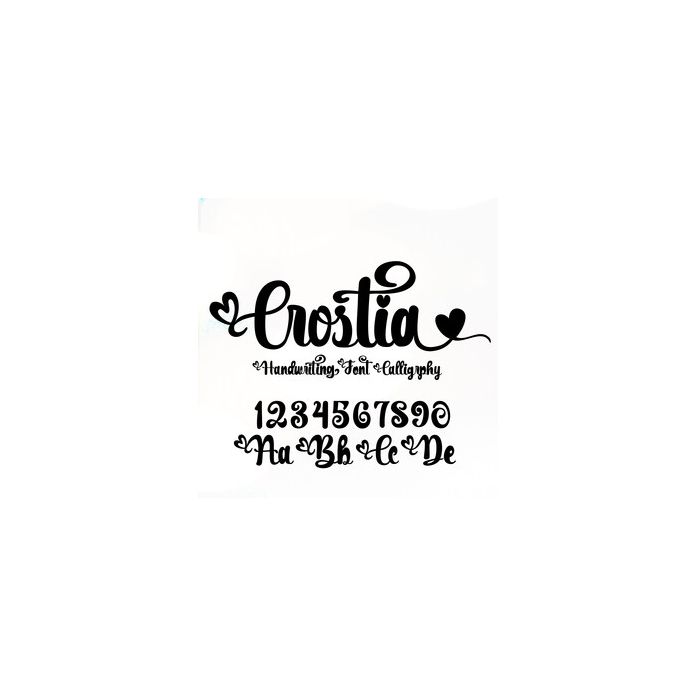
Crostia Love, which is straightforward and charming when combined in any design, is also suitable for welcoming the new year. Perfect for projects, products, crafts, invitations and personalization. Includes alphabet, numbers, and punctuation.